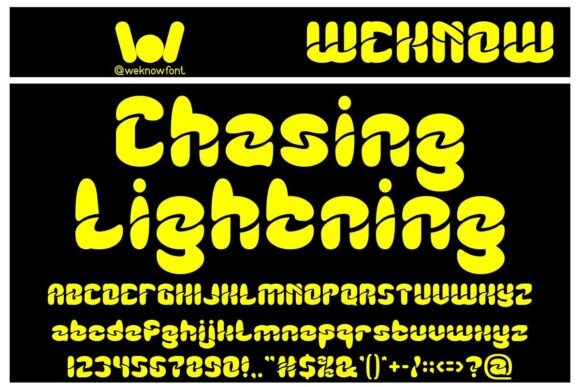
Introducing Chasing Lightning Font: The Ultimate Techno Sci-Fi Display Font
In the world of typography, fonts play a crucial role in shaping the visual identity of a brand, product, or creative project. With the ever-growing demand for unique and attention-grabbing designs, the Chasing Lightning font has emerged as a game-changer. This techno sci-fi inspired font is designed to strike the perfect balance of whimsy and sophistication, making it an excellent choice for a wide range of applications.
Unleashing Creativity with Chasing Lightning
Chasing Lightning is more than just a font – it’s a design statement. Its futuristic and edgy aesthetic effortlessly transforms mundane text into a stylish masterpiece. Whether you’re looking to create a distinctive brand logo, craft captivating headlines, or add a touch of genre-targeted charm to your designs, this font is sure to make a significant impact.
Key Features of Chasing Lightning Font
- Techno Sci-Fi Inspiration: Chasing Lightning draws inspiration from the world of science fiction, making it perfect for projects that require a futuristic and edgy feel.
- Whimsical yet Sophisticated: This font strikes the perfect balance of playfulness and elegance, making it suitable for a wide range of applications.
- Highly Versatile: Chasing Lightning adapts seamlessly to various artistic aesthetics, allowing designers to experiment with different styles and themes.
- Excellent for Display Purposes: With its bold and attention-grabbing design, this font is ideal for creating stunning headlines, titles, and logotypes.
Applications of Chasing Lightning Font
Chasing Lightning font is an incredibly versatile design tool that can be used across various industries and platforms. Here are some of the ways you can utilize this fantastic font:
- Branding and Logo Design: Add a distinctive edge to your brand’s logo and logotype with Chasing Lightning’s unique and memorable design.
- Apparel Industry: Bring your apparel designs to life with this font’s genre-targeted charm, creating eye-catching and captivating visuals.
- Music, Movies, and Games: Set the tone for your music, movie, or game project with Chasing Lightning’s techno sci-fi inspired aesthetic.
- Magazines and Publishing: Use this font to create stunning headlines and titles for your magazine, book, or comic project.
- Digital Platforms: Enhance your creative vision across numerous digital platforms, including YouTube, Instagram, and websites.
Why Choose Chasing Lightning Font?
With so many fonts available in the market, why should you choose Chasing Lightning? Here are some compelling reasons:
- Unique Design: Chasing Lightning boasts a distinctive and futuristic design that sets it apart from other fonts.
- Highly Customizable: Experiment with different styles, colors, and effects to make this font your own.
- Excellent Readability: Despite its bold and edgy design, Chasing Lightning remains highly readable, making it suitable for body text and captions.
Tips for Using Chasing Lightning Font
To get the most out of Chasing Lightning font, here are some valuable tips:
- Experiment with Different Sizes: Play with different font sizes to create visual hierarchy and emphasize key elements.
- Pair with Complementary Fonts: Combine Chasing Lightning with other fonts to create a harmonious and visually appealing design.
- Use Color Effectively: Select colors that complement the font’s techno sci-fi aesthetic, creating a cohesive and engaging visual identity.
- Don’t Overdo It: Use Chasing Lightning font judiciously, reserving it for key elements and headlines to maintain visual balance.